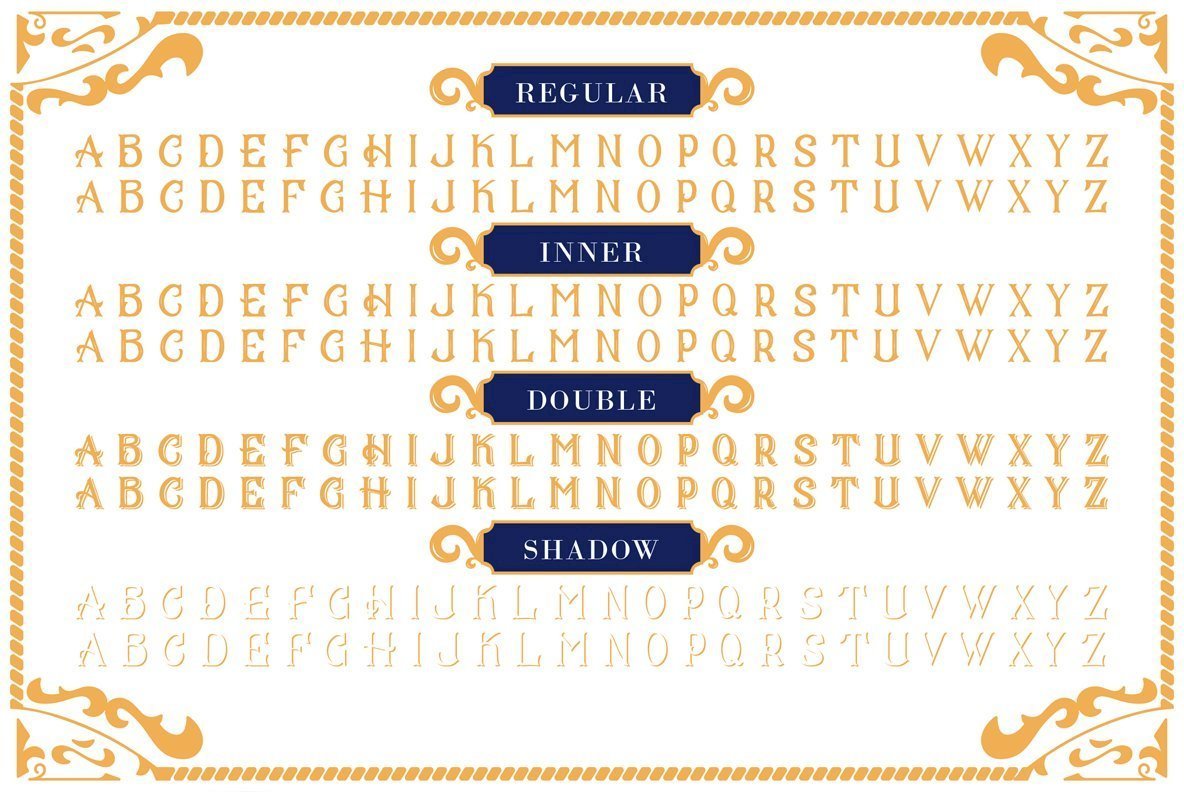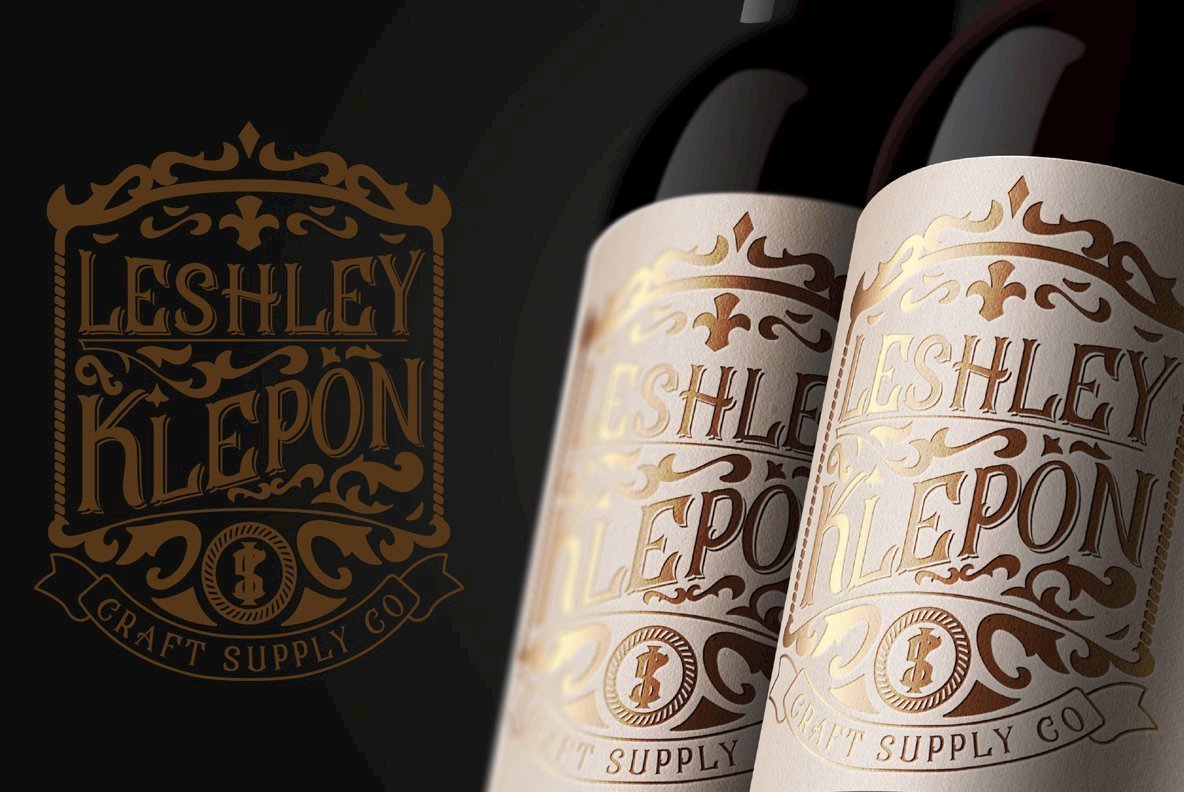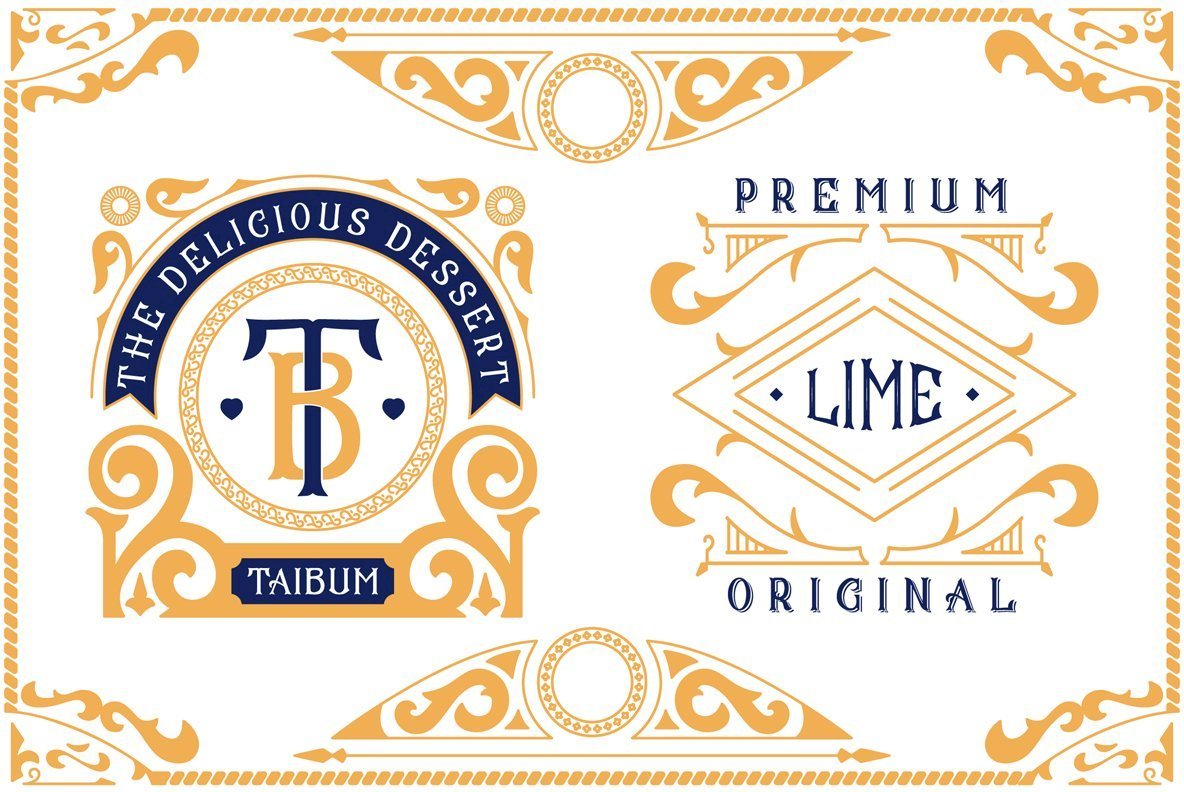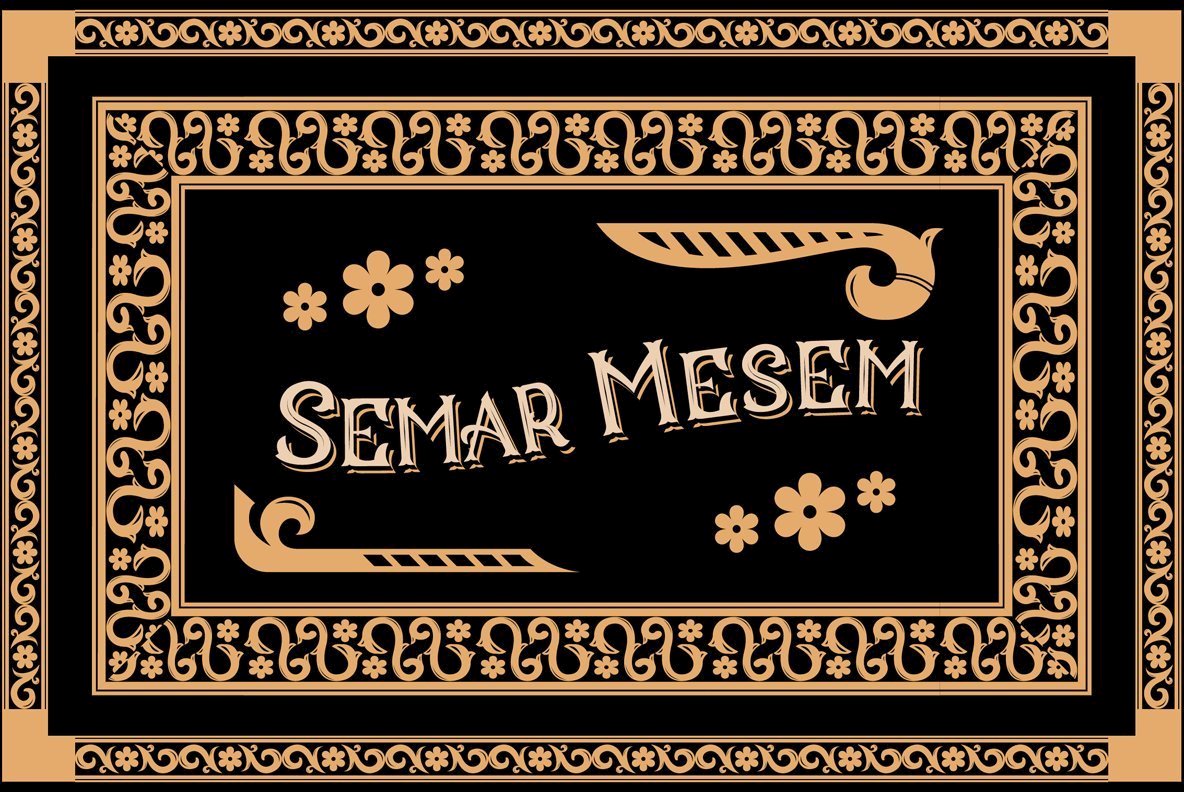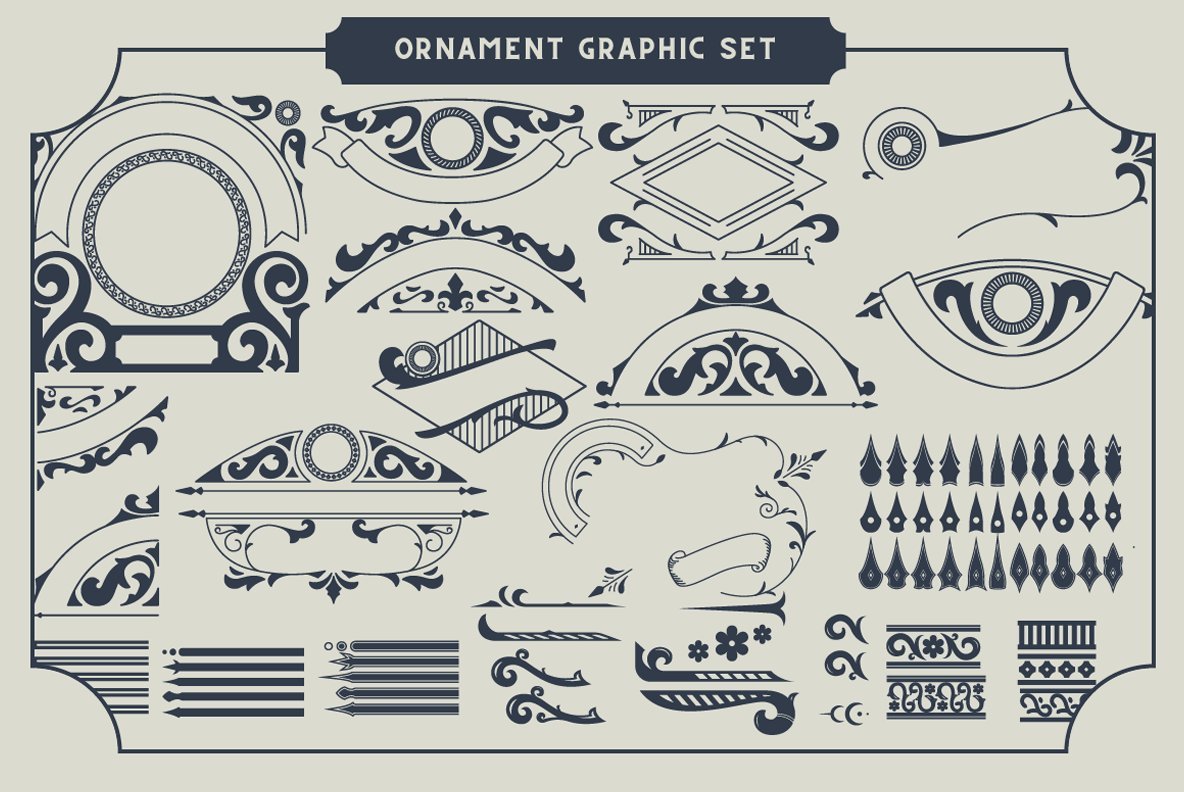
CS Mulan Font
In the realm of typography, CS Mulan presents a truly flexible option with its four distinct styles. Suited for a broad array of design applications, from print materials to logos, vintage texts, and beyond, this typeface stands ready to enhance your creative endeavors. With its stylish versatility, CS Mulan is an ideal choice for greeting cards, package designs, brand identities, DIY projects, book titles, and even wedding fonts. The font's timeless appeal and adaptability make it an attractive option for projects seeking a balance between classic and contemporary aesthetics. Simply dive into the creative possibilities that CS Mulan opens up, as no special software is necessary to fully utilize its potential. It is designed to blend seamlessly across various applications and themes, providing designers with a reliable toolkit for crafting impactful visuals.CS Mulan: Versatile Typeface for Diverse Design Projects